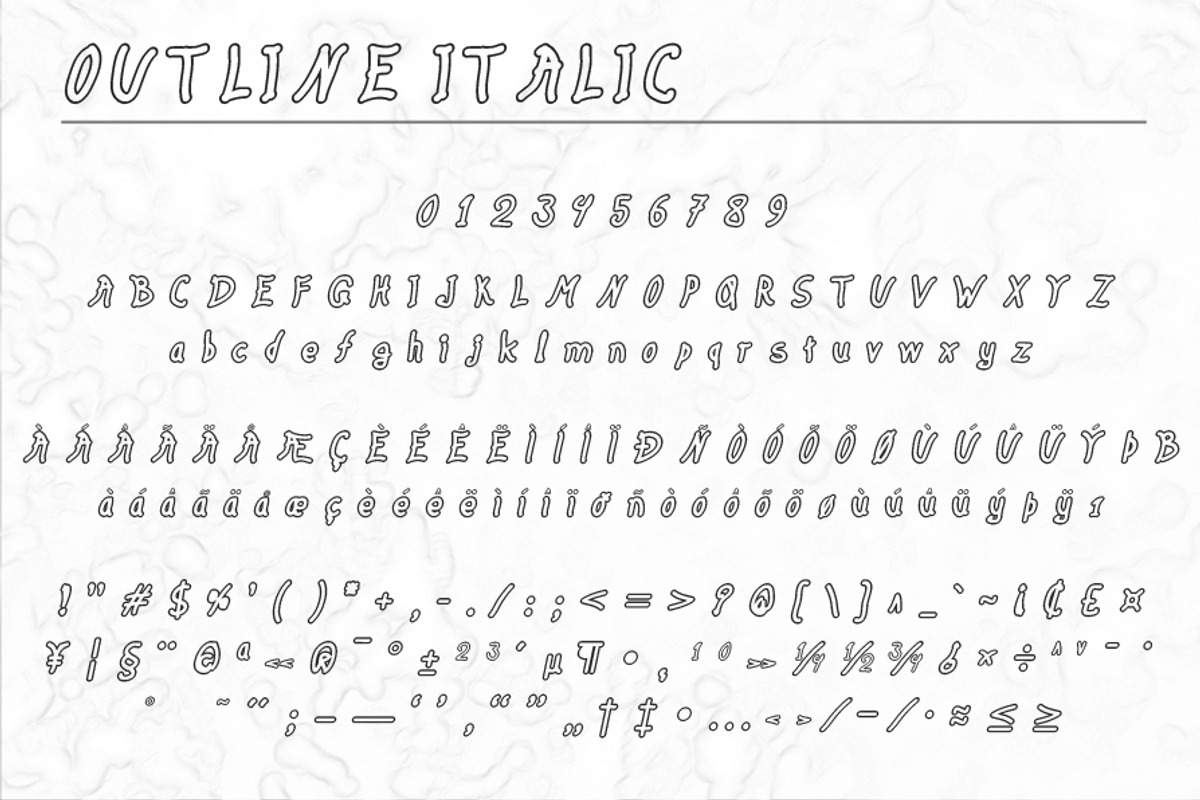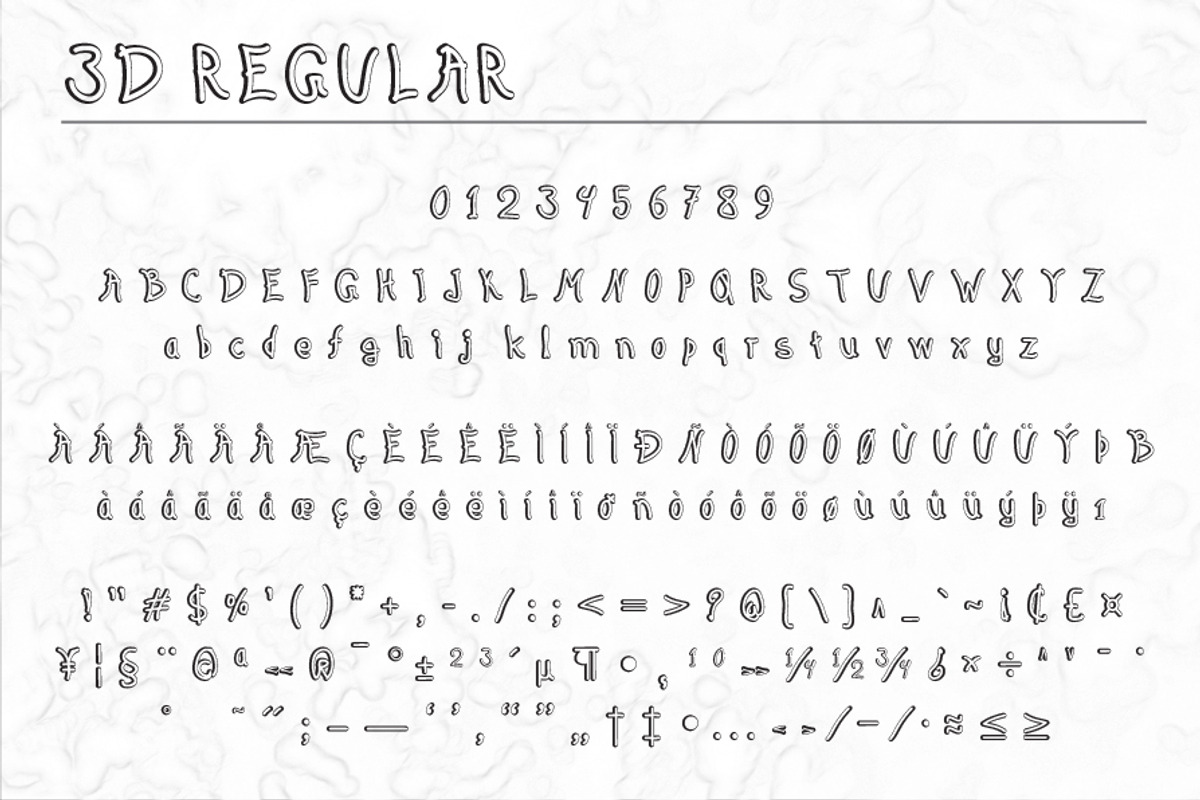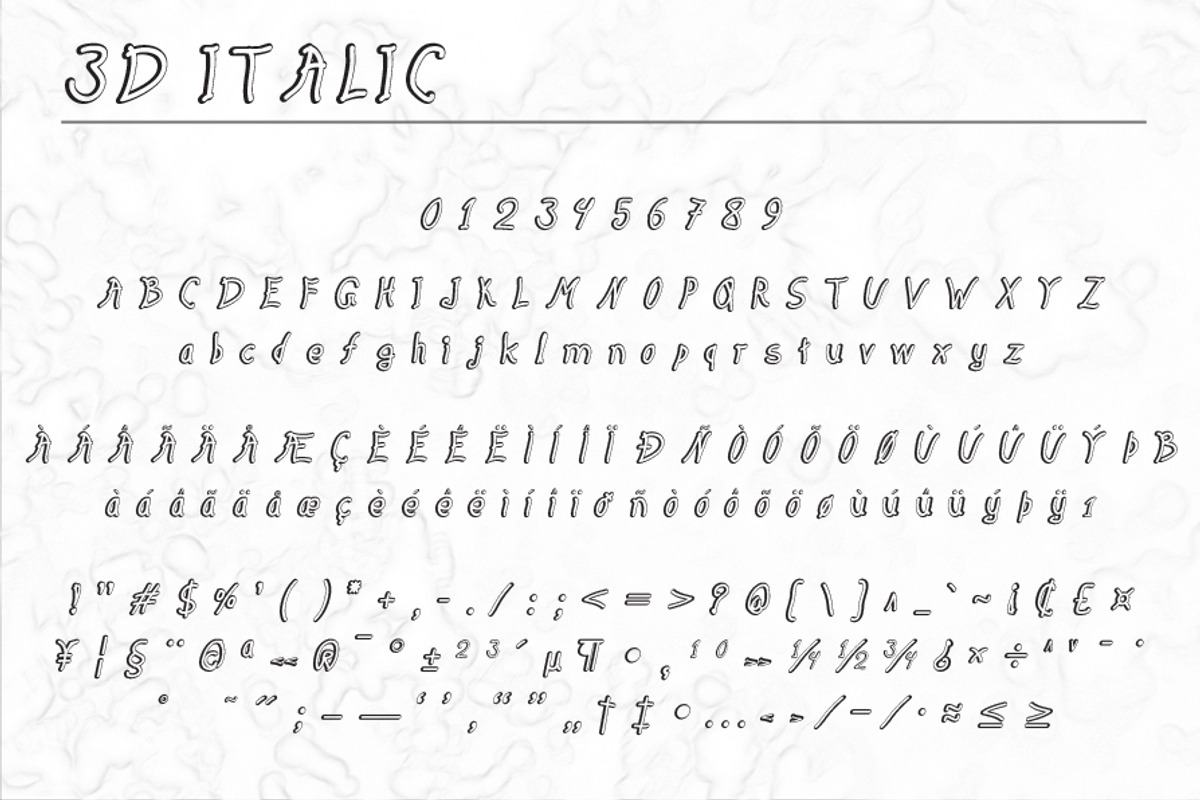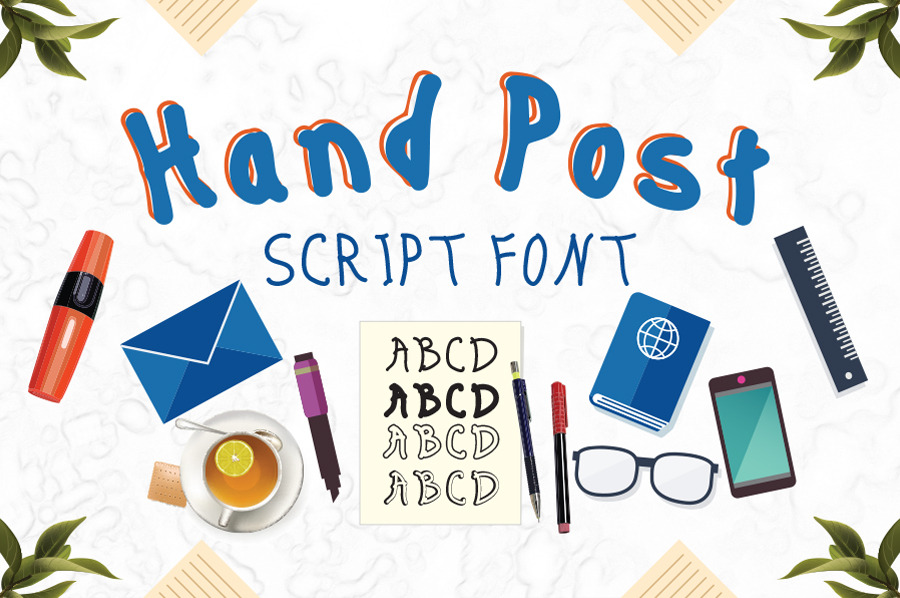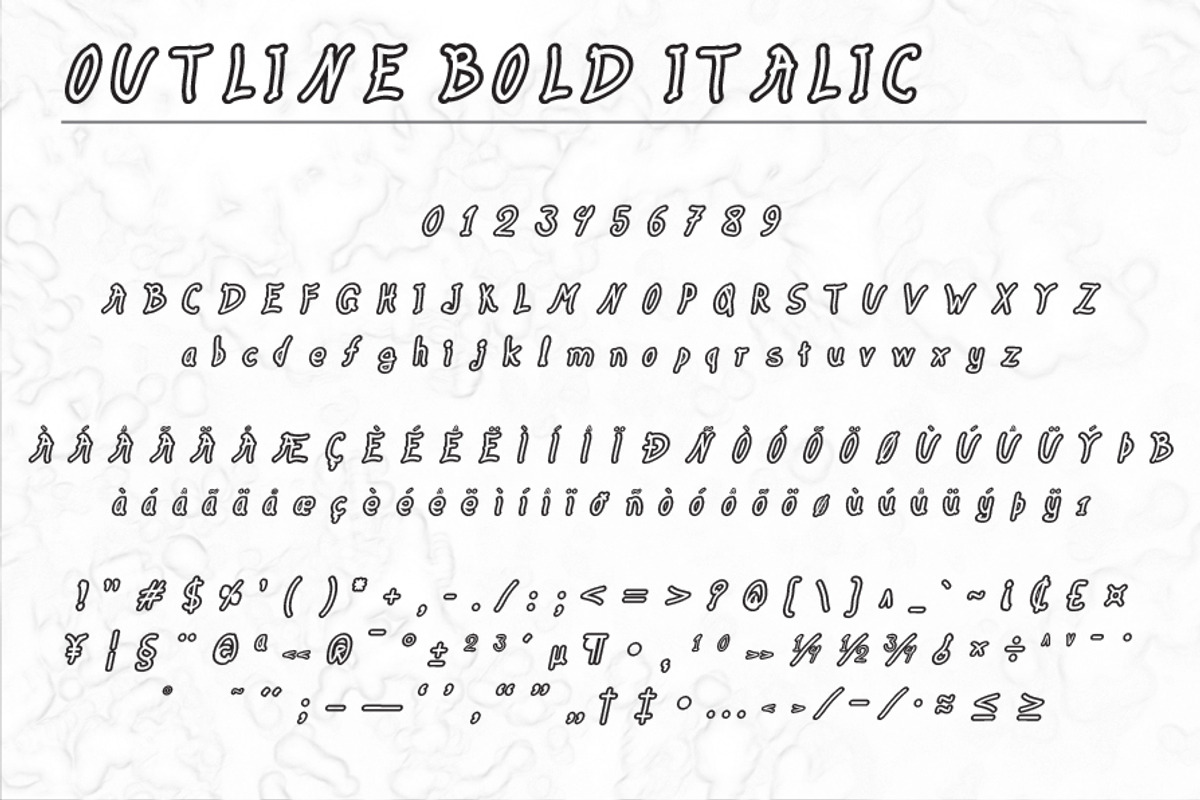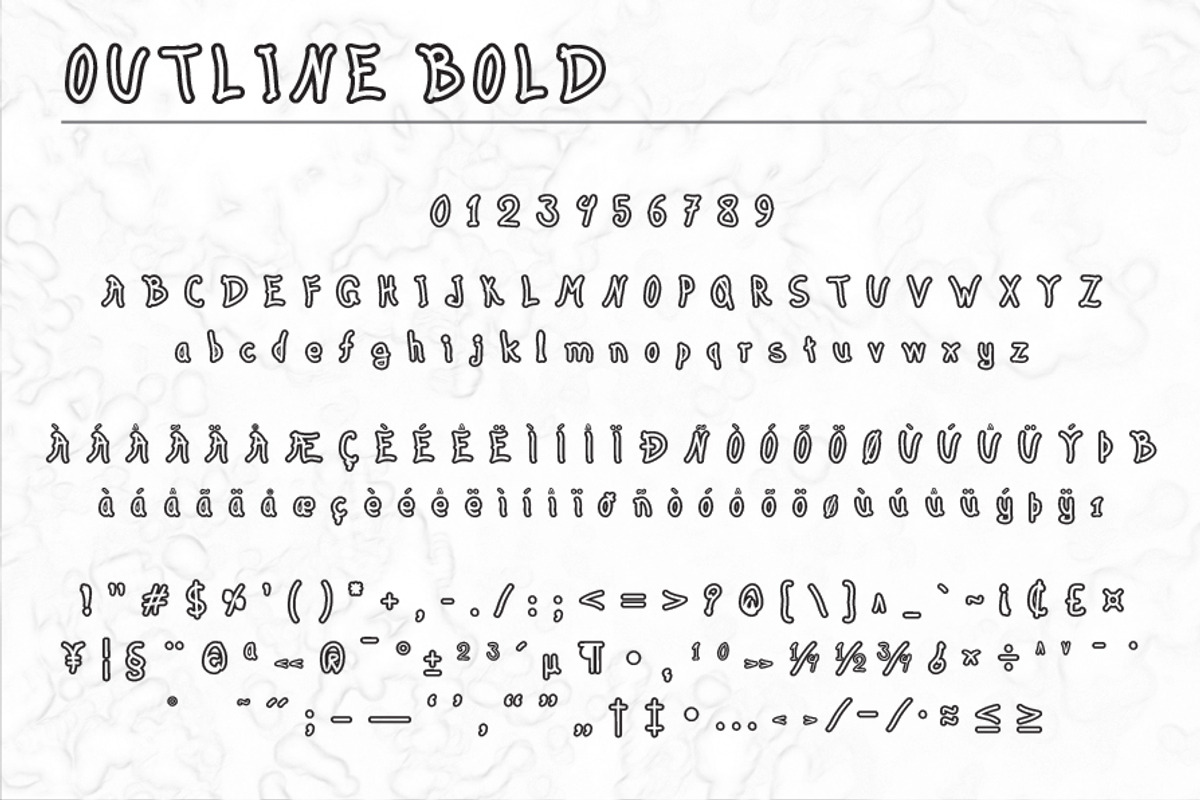
Hand Post 10 Fonts
Hand Post Family of 10 Fonts
- Hand Post Regular - Hand Post Italic - Hand Post Bold - Hand Post Bold Italic - Hand Post Outline - Hand Post Outline Italic - Hand Post Outline Bold - Hand Post Outline Bold Italic - Hand Post 3D - Hand Post 3D Italic
Hand Post font is a handwriting font. Available in Regular, Italic, Bold, Bold Italic, Outline, Outline Italic, Outline Bold, Outline Bold Italic, 3D and 3D Italic with 215 characters. Include 215 glyph on per fonts